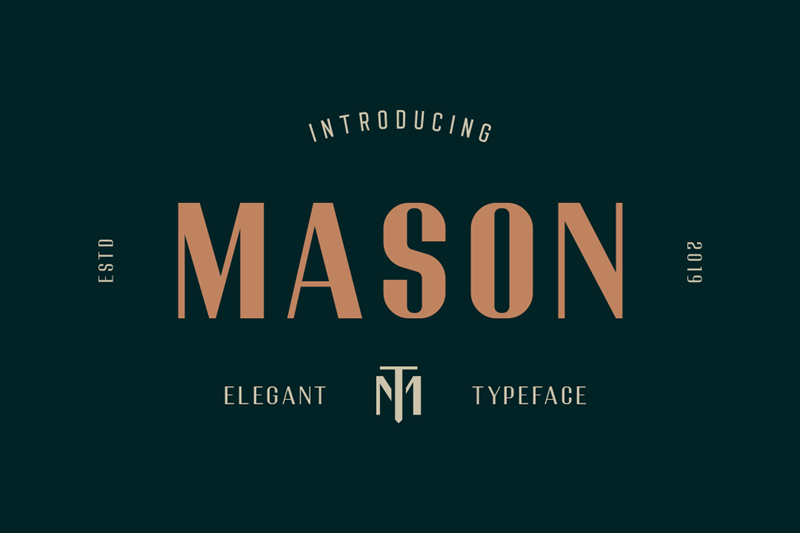
Preview and download Mason Font. Created by Fadielm70 in Basic Sans serif styles with Free for personal use license.
Mason is an elegant sans-serif display font created specifically for display typography. with a masculine but elegant style very suitable for purposes such as fashion magazine titles, logos, posters or as website text headers. Font weight : Regular, Semibold, Bold Formats : otf, ttf, woff Full Version : https://creativemarket.com/Fadiel-muhammad/4419796-Mason-Sans-serif Thank you. |